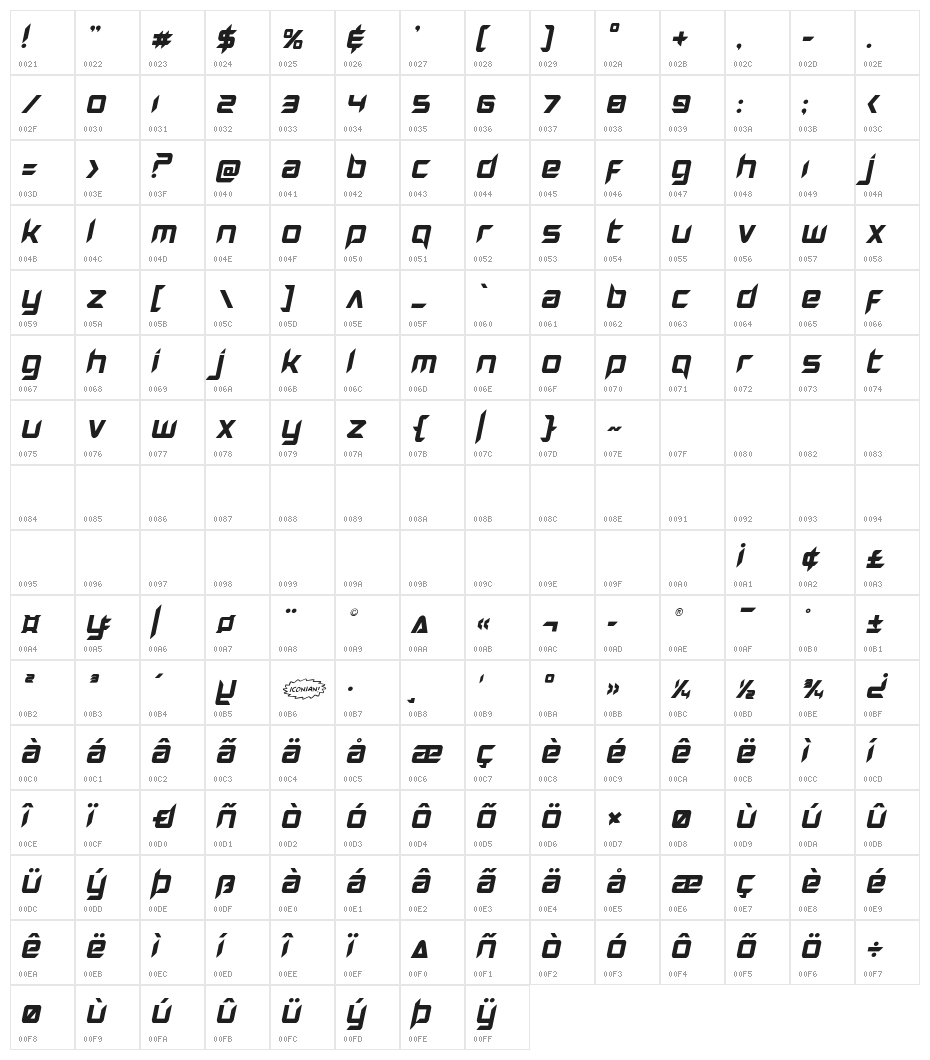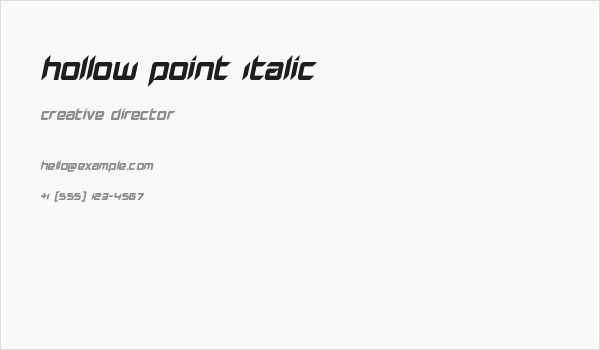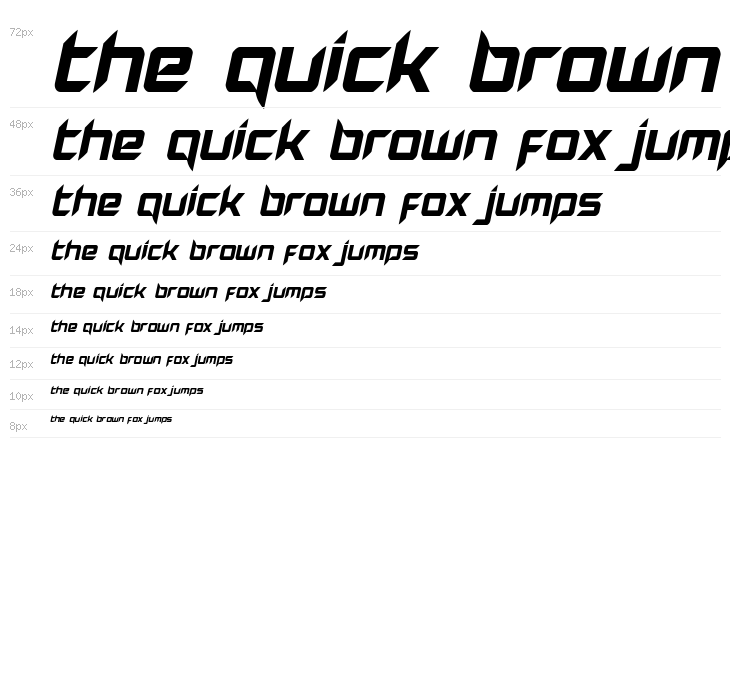
Hollow Point Italic Font
Hollow Point Italic Description
This font features a dynamic and futuristic design with sharp, angular edges and a forward-leaning italic style. The characters are bold and impactful, with a distinct geometric influence that gives them a sleek, modern appearance. The uppercase and lowercase letters maintain a consistent style, enhancing readability while retaining a unique aesthetic. Numbers and special characters follow the same design principles, ensuring uniformity across all glyphs. The font's boldness and angularity make it ideal for projects that require a strong visual impact.
| Proposed Projects | Ideal for technology branding, sports team logos, video game titles, and sci-fi themed designs. |